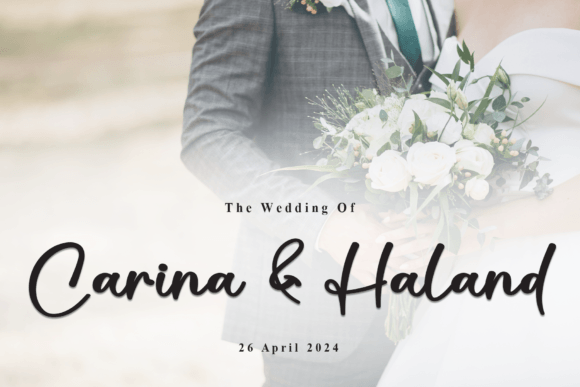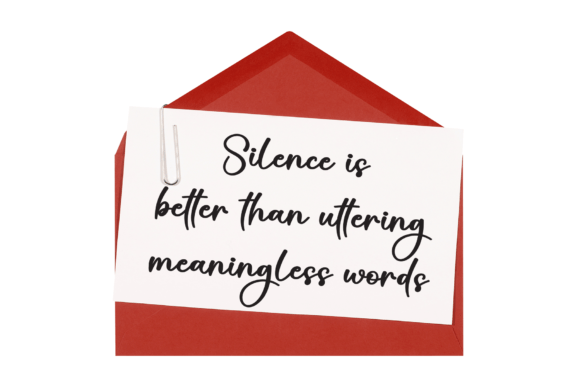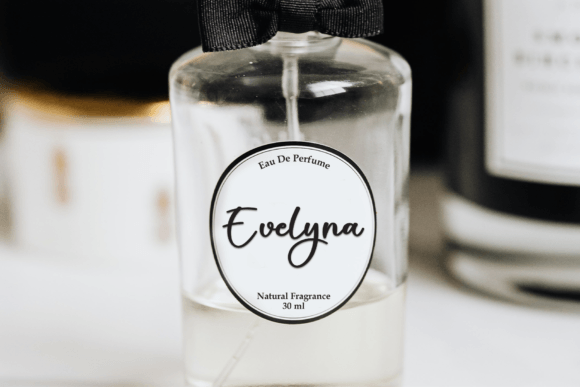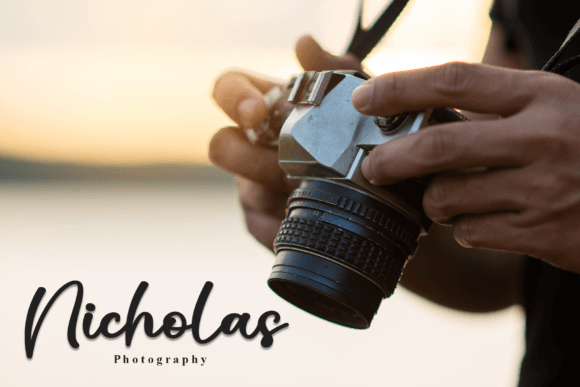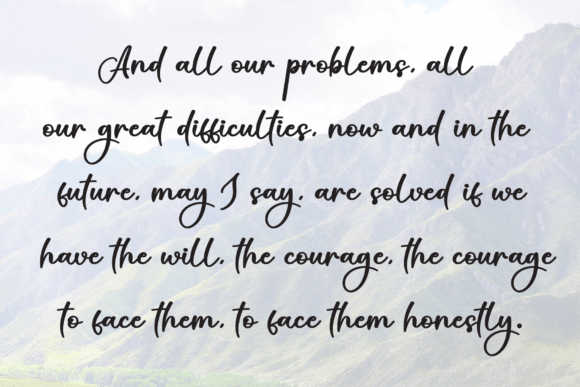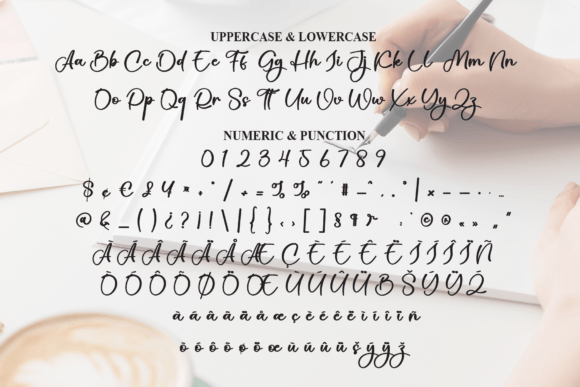
The Perfect Touch of Elegance: Introducing Angela Signature Font
Do you remember the moment when you first fell in love with a font? Maybe it was the way it danced across the page, or the subtle flair it added to your design. For many of us, that moment is what drives our creative passion. For designers, the right font can make all the difference between a good project and a great one.
Enter the Angela Signature Font, a stylish and elegant addition to any design. With its beautiful italic design, this font adds a touch of sophistication to your text, making it perfect for adding a personal and classy touch to your projects. Whether you’re a seasoned designer or just starting out, the Angela Signature Font is a valuable tool that can elevate your work and make it stand out from the crowd.
Key Features of Angela Signature Font
- Font Family: Angela is a handwritten font, ideal for creative and personal projects. It includes uppercase and lowercase letters, numbers, and punctuation marks.
- Unique Characteristics: Angela’s handwritten style features connecting letters, swashes, and subtle flourishes, giving it a personal and elegant touch.
Angela Signature Font Review
As a designer, I’ve had the opportunity to work with various fonts, and I must say that the Angela Signature Font has its own unique charm. ✨ Here are a few things that I appreciate about this font:
- It has a distinct, hand-drawn feel that makes it perfect for creative projects and branding.
- The font is highly customizable, allowing users to adjust the size, color, and style to fit their needs.
- It’s available in multiple weights, making it versatile for use in various contexts.
However, there are a few limitations that I’d like to point out: ⚠️
- The font may not be suitable for large blocks of text, as it can become difficult to read.
- The customizability can also make it challenging to maintain consistency across different elements.
- It may not be the best choice for formal or professional projects, as it can come across as too playful.
Overall, I think the Angela Signature Font is a great choice for designers who want to add a touch of personality to their projects. It’s perfect for creative agencies, bloggers, or anyone looking to create a unique brand identity. While it may have some limitations, I believe it’s well worth the investment for the right projects.
To get the most out of the Angela Signature Font, experiment with different font sizes, colors, and combinations with other fonts. This font is perfect for adding a personal touch to your designs, so don’t be afraid to get creative!
The Angela Signature Font is commonly used for:
- Personal branding and logo design.
- Stationery and business card design.
- Wedding invitations and